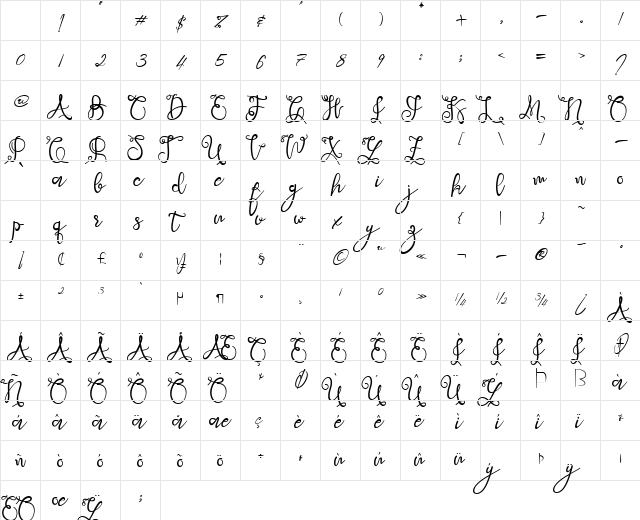
Complete Sweet Nowvember Regular glyph index. Displaying only characters natively supported by Sweet Nowvember Regular font.
Sweet Nowvember is a composed and adaptable typeface that performs quietly and consistently across a wide range of design contexts.